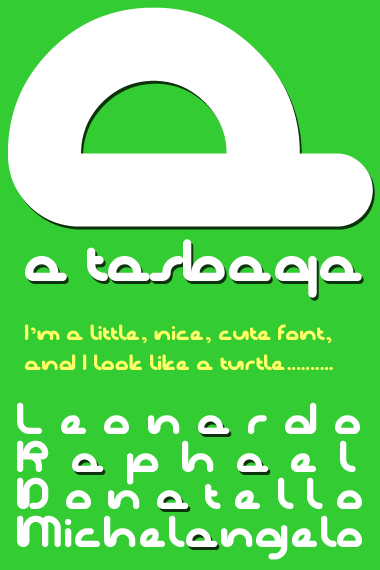
a tasbaqa
Tasbaqa means turtle, tortoise in Kazakh. More glyphs to come, I hope. Enjoy!
Adorable. A cute little sister for your "Happi"
Especially like the lower case!
What a sweetie!It even has a slightly hand-drawn quality to it. 10/10
This is one of the coolest designs I've seen for Cyrillic. Overall, this font is awesome.